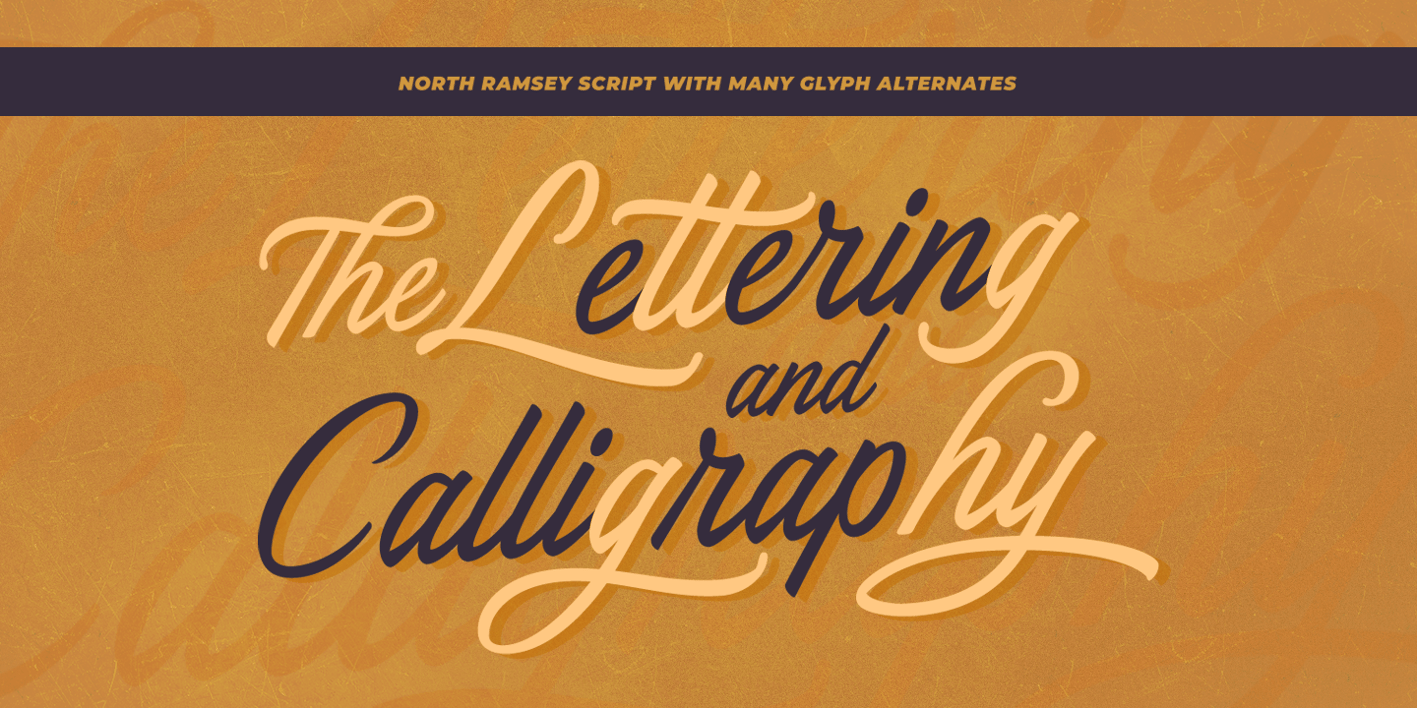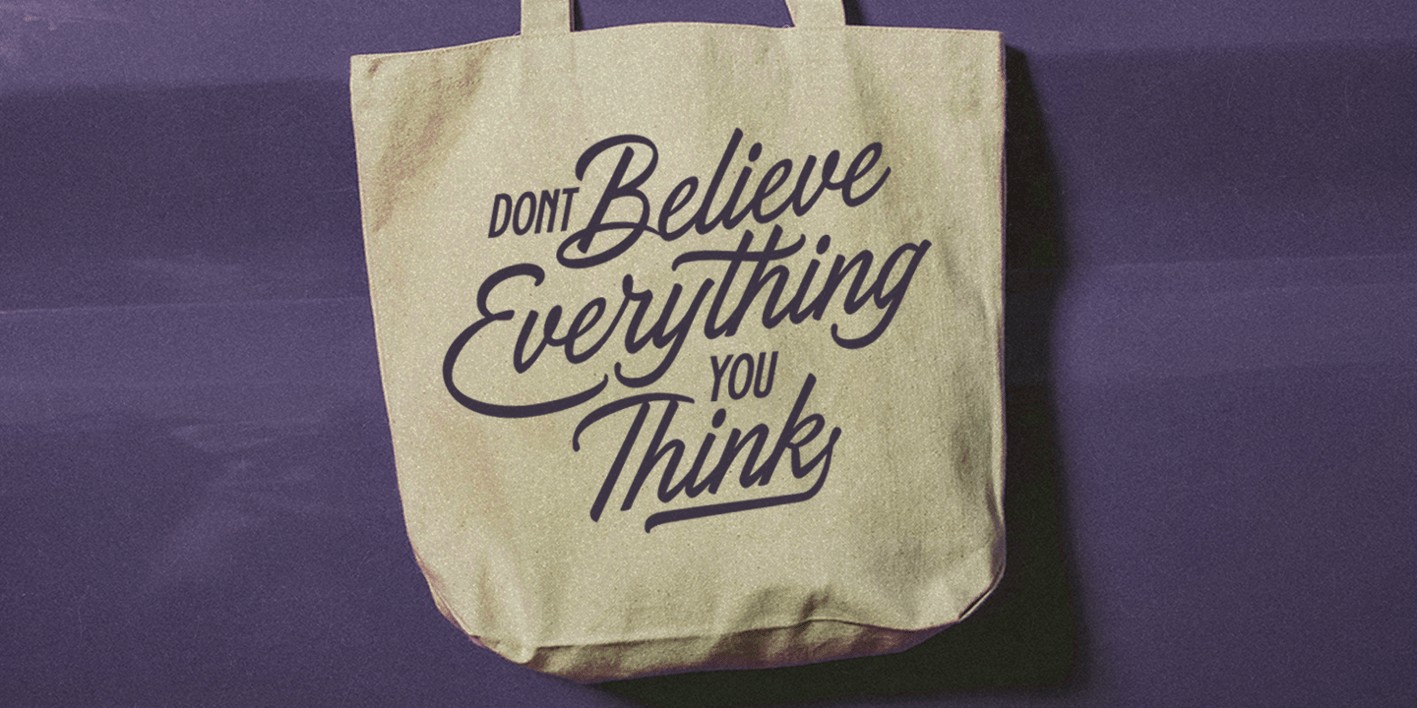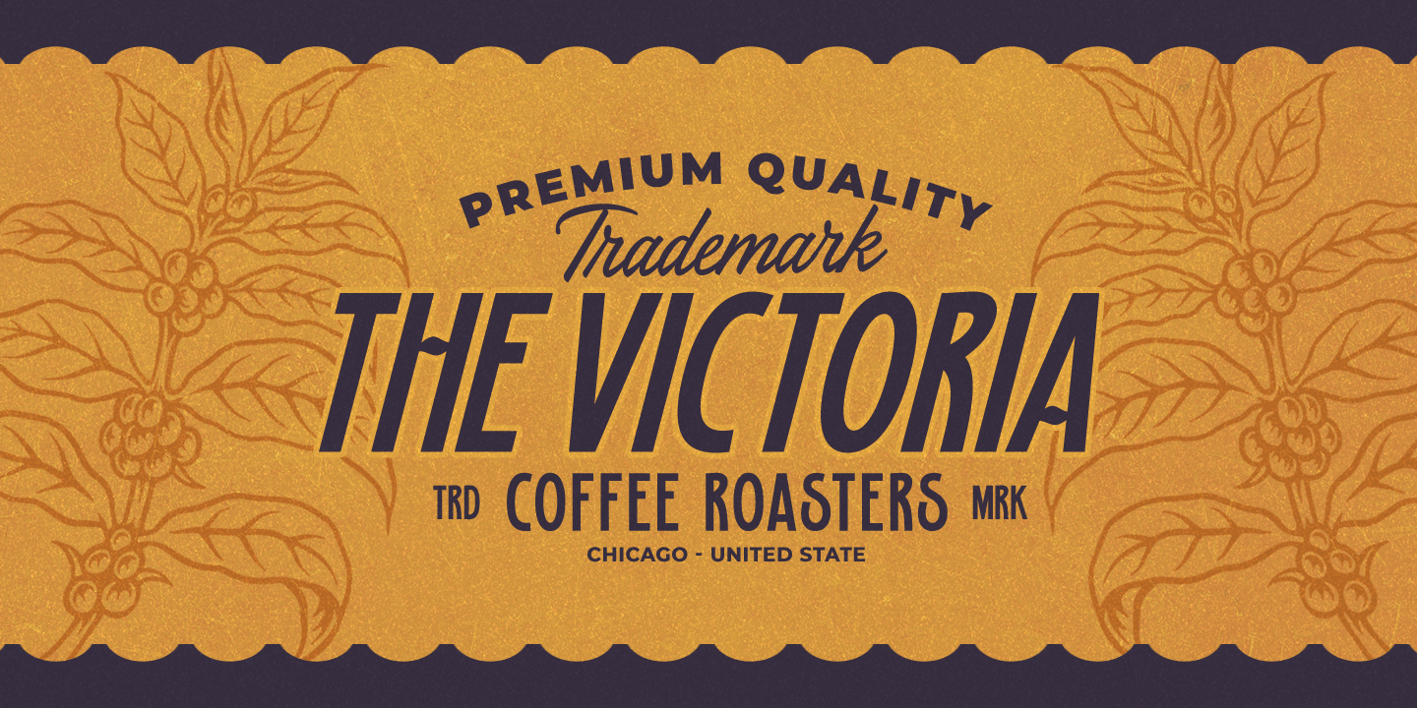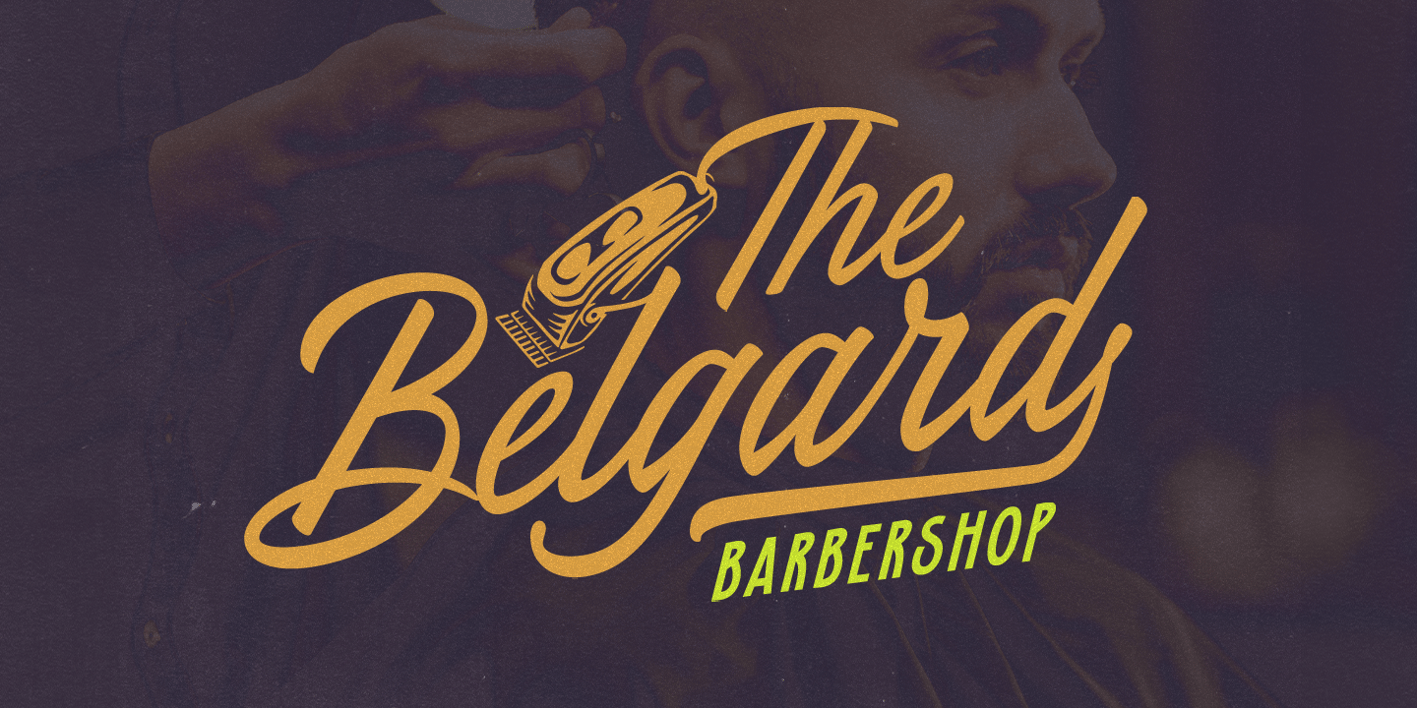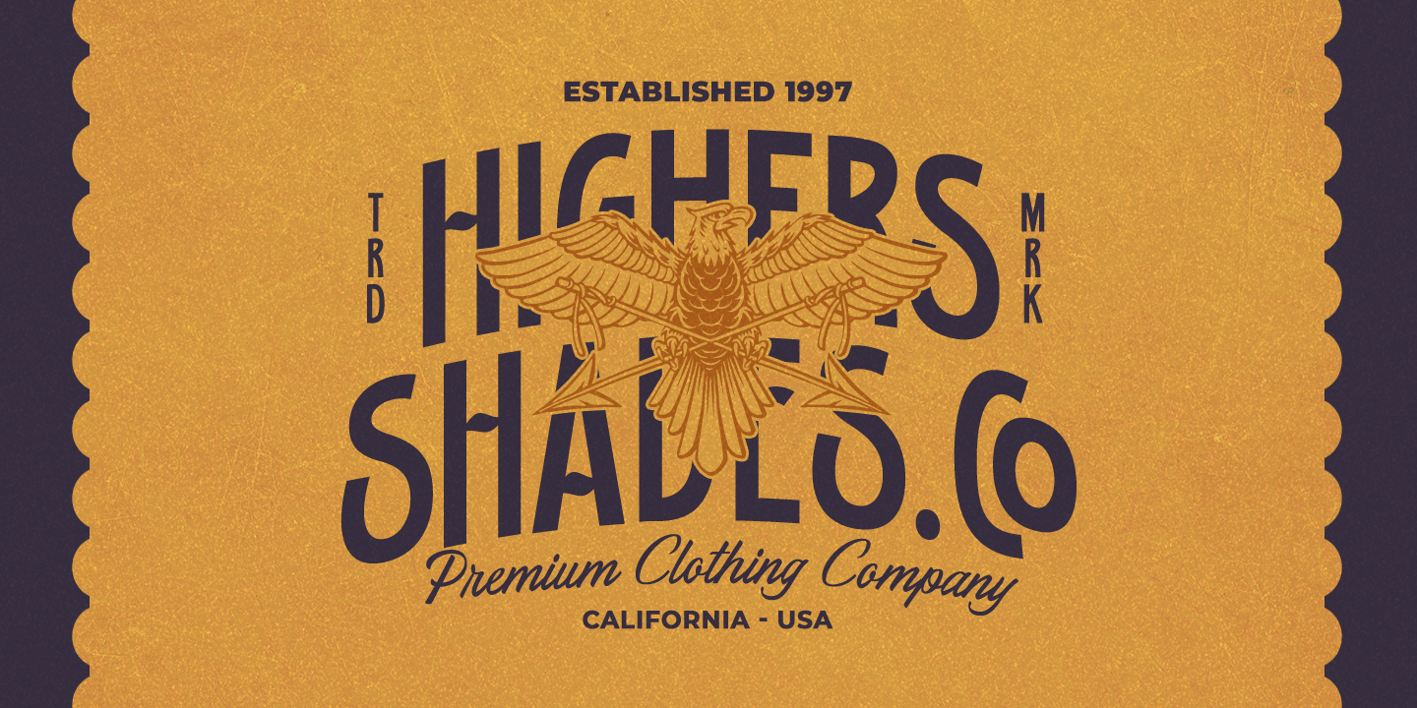
North Ramsey Font
North Ramsey - Vintage Font Duo is a sans font that comes with script, both will match perfectly. The vintage feel is really perfect for you who needs a typeface for especially logotype, apparel, branding, packaging, advertising etc. Features : North Ramsey Script North Ramsey Sans (Regular & Slant) Uppercase & lowercase Numbers and punctuation Alternates & Ligatures Multilingual PUA encoded